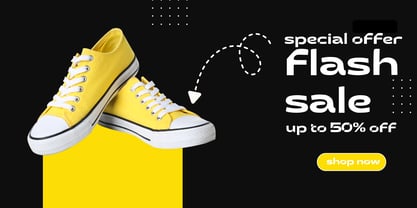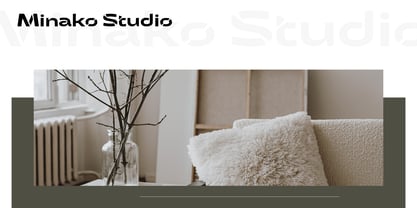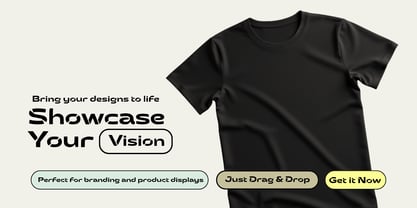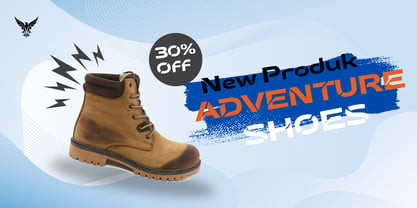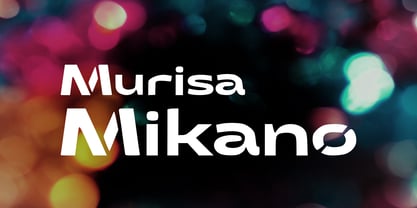
⚡ Murisa Mikano – Bold Futuristic Stencil Typeface
Unleash a powerful visual impact with Murisa Mikano, a cutting-edge display font designed for high-octane branding, modern packaging, and striking headlines. Featuring a unique, precisely engineered geometric stencil design, this typeface strikes the perfect balance between industrial strength and contemporary aesthetics.
Every character is crafted with sharp cuts and balanced curves, giving your text an undeniable presence that stands out instantly.
🌍 Extended Eastern European Support
Built for global reach, Murisa Mikano includes robust multilingual support, fully covering Eastern European languages alongside Western and Central European sets. Perfect for international projects demanding flawless localized typography.
✨ Key Features:
• 🏷️ Unique geometric stencil aesthetic
• 🔠 Complete Uppercase & Lowercase alphabet
• 🔢 Stylized Numerals & essential punctuation
• 🌐 Extensive Eastern European diacritics & special characters
• 📐 Clean, high-contrast curves for maximum legibility
🚀 Best Suited For:
• 👕 Streetwear & apparel design
• 🎮 Gaming & tech branding
• 🎬 Movie posters & title screens
• 📦 Bold product packaging
• 📱 Digital graphics & social media content
📐 Bring your next design revolution to life. Whether you are building an international brand identity, launching a tech product, or crafting bold visual layouts, Murisa Mikano provides the flawless precision and global language support you need to make an unforgettable statement. 🚀